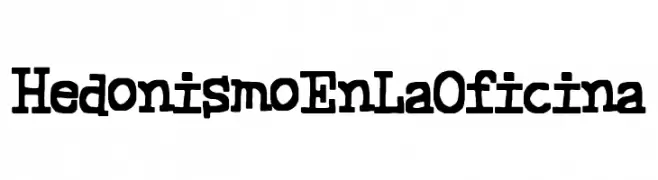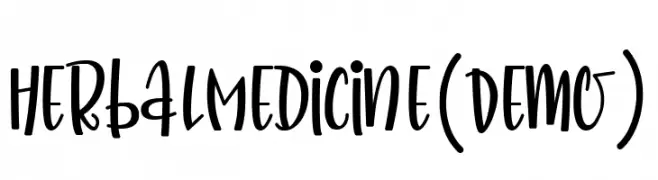
A bold, decorative font with high contrast and playful detailing.
A bold, playful font with a hand-drawn, whimsical style.
A bold, distressed font with a grunge, textured appearance.
A bold, italicized typeface with a dynamic, racing-inspired design.
A playful, handwritten font with bold, dynamic characters.
A bold, playful font with thick, rounded letters and a retro vibe.
A bold, intricate blackletter font with medieval flair.
A bold, playful font with a 3D comic book style.
A playful, bold, and rounded font with a cartoonish style.
A casual, handwritten font with a dynamic and flowing style.